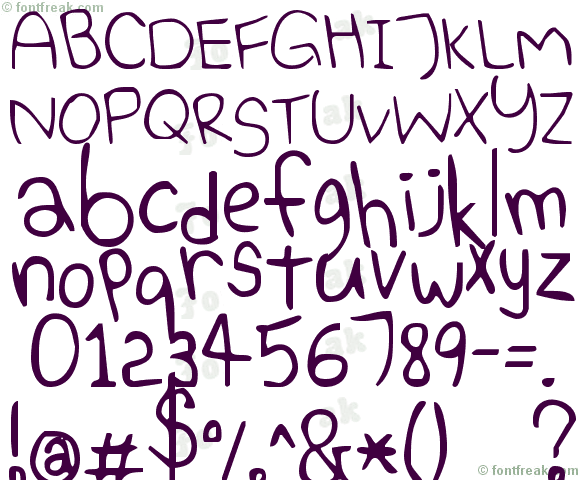
Elephant Hiccups
About Elephant Hiccups
Elephant Hiccups is a charming handwritten font designed by Kimberly Geswein, categorized as a decorative typeface. This font features a playful and whimsical style, characterized by its uneven yet fluid strokes, giving it a delightful hand-drawn appearance. The stroke weight varies throughout the characters, providing a sense of movement and spontaneity. Its moderate contrast and relaxed spacing create a friendly and approachable vibe, making it perfect for a variety of creative projects.
The Elephant Hiccups font is particularly well-suited for use in children's book illustrations, playful branding for cafes or boutiques, greeting cards, and social media graphics. Its unique character lends itself beautifully to projects that aim to evoke a sense of joy and lightheartedness. Graphic designers and small business owners will find this font invaluable for creating eye-catching visuals that stand out in a crowded marketplace.
Content creators looking to add a personal touch to their work will also appreciate the versatility of Elephant Hiccups. It can easily adapt to both formal and informal contexts, making it a go-to choice for diverse applications. Whether you're crafting a fun invitation or designing a logo that needs to convey a sense of warmth and creativity, this font delivers.
What truly makes Elephant Hiccups shine is its ability to capture a playful spirit while remaining legible and engaging. The font's distinctive style brings a sense of personality to any project, making it an excellent choice for those seeking to leave a lasting impression. For anyone interested in incorporating this delightful design into their work, the Elephant Hiccups font free download offers a fantastic opportunity to explore its unique charm without any cost.